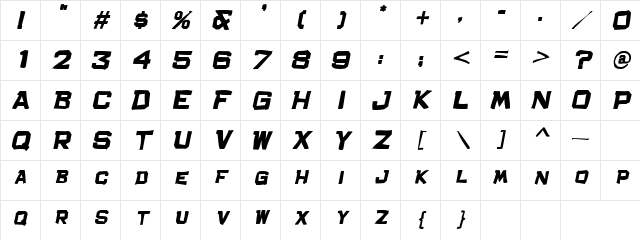
Bachelor Pad Crud JL Italic
Foundry: Jeff's Fonts & Dingbats
Designer: Jeffrey n. Levine
Design Context for Bachelor Pad Crud JL
Bachelor Pad Crud JL is a composed and adaptable typeface that performs quietly and consistently across a wide range of design contexts. The slanted form adds forward momentum and visual energy.
Pro Tip: Use Bachelor Pad Crud JL for emphasis, pull quotes, and subheadings where its slanted energy can add rhythm to the layout.